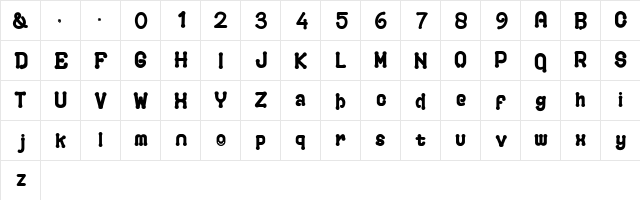
PLAYGROUND Regular
Design Context for PLAYGROUND Typeface
PLAYGROUND uses gentle rounded endings to create a warm, inviting typographic personality — less corporate than geometric sans, more refined than playful display fonts.
A natural fit for tech startups, health and wellness brands, children's products, and friendly consumer apps.
Font Pairing: Pairs well with a rounded or humanist sans for body copy, maintaining the friendly tone without relying on PLAYGROUND to carry extended reading.
Pro Tip: Pair PLAYGROUND with a geometric sans for a balanced system — the rounded softness works as a warm counterpoint to harder-edged companions.